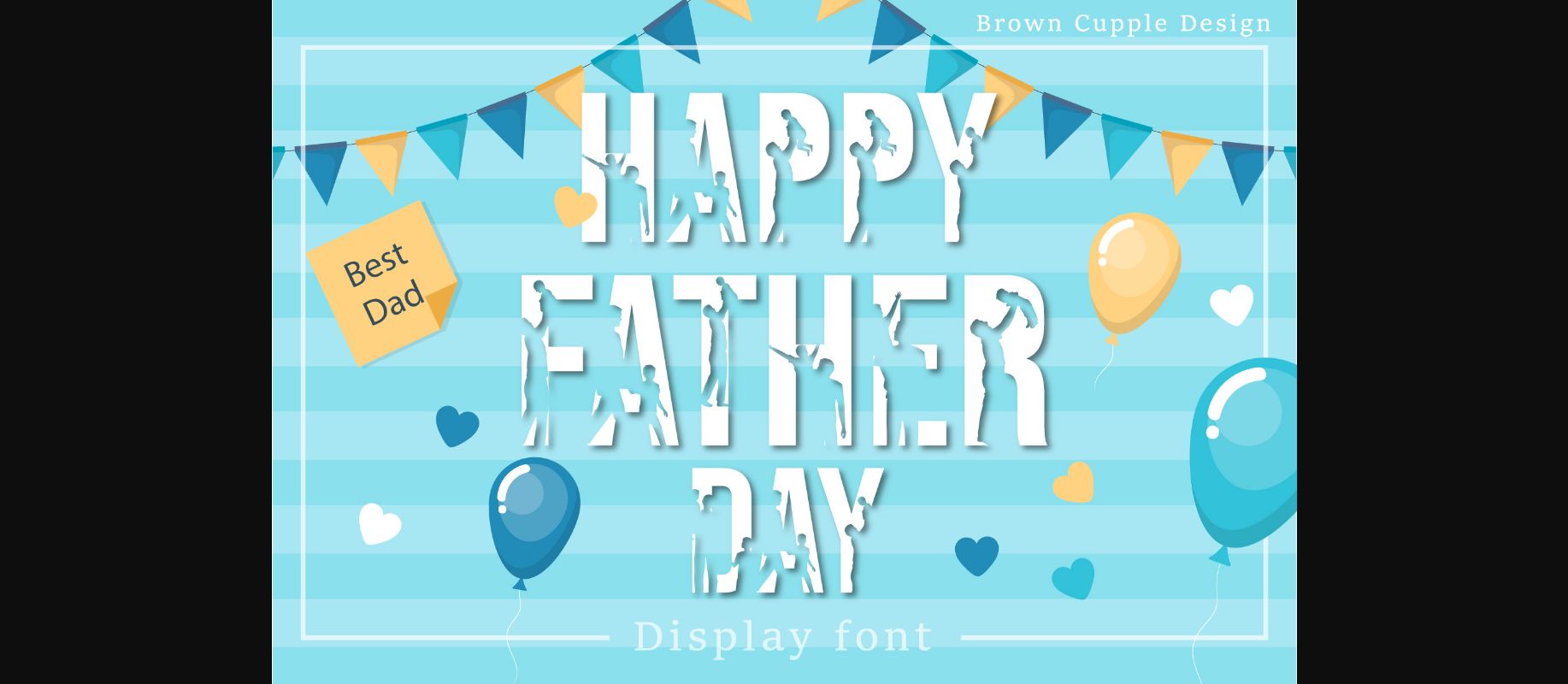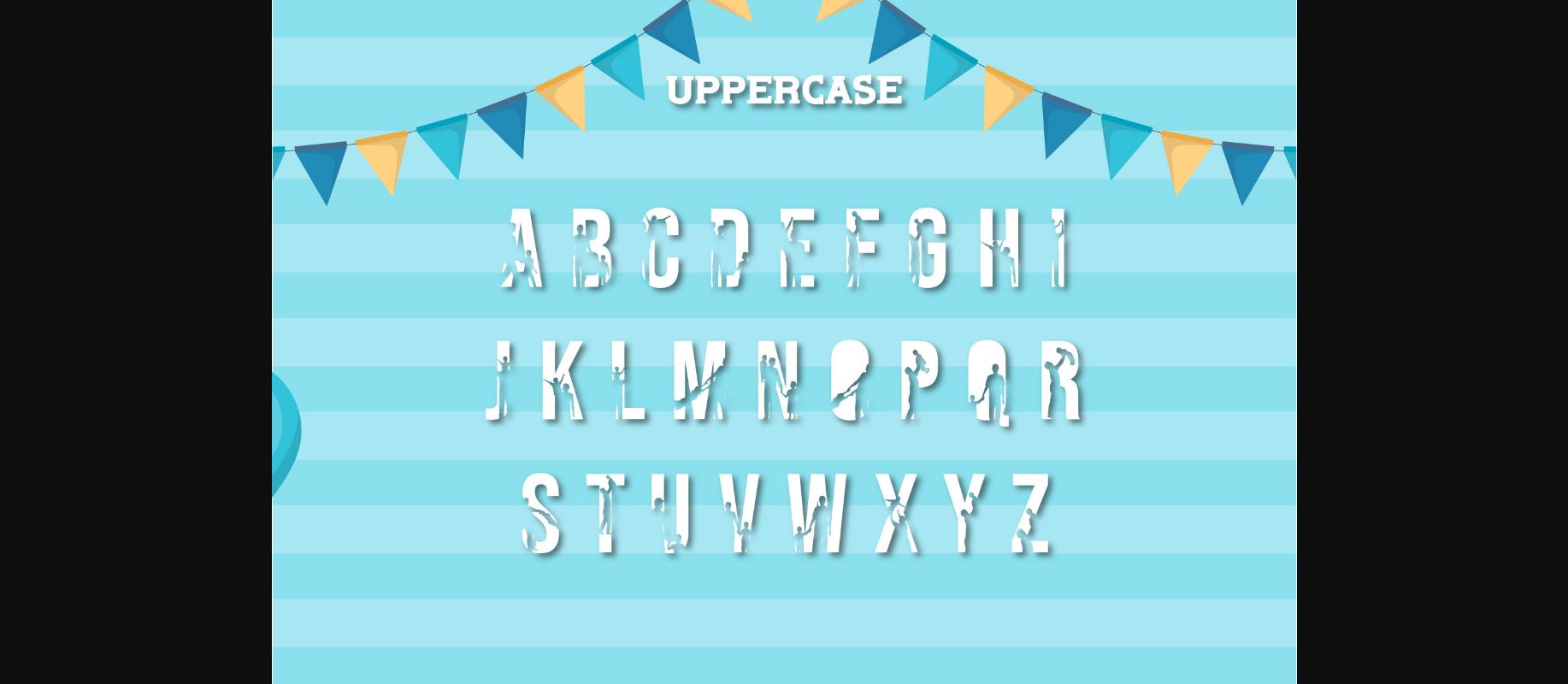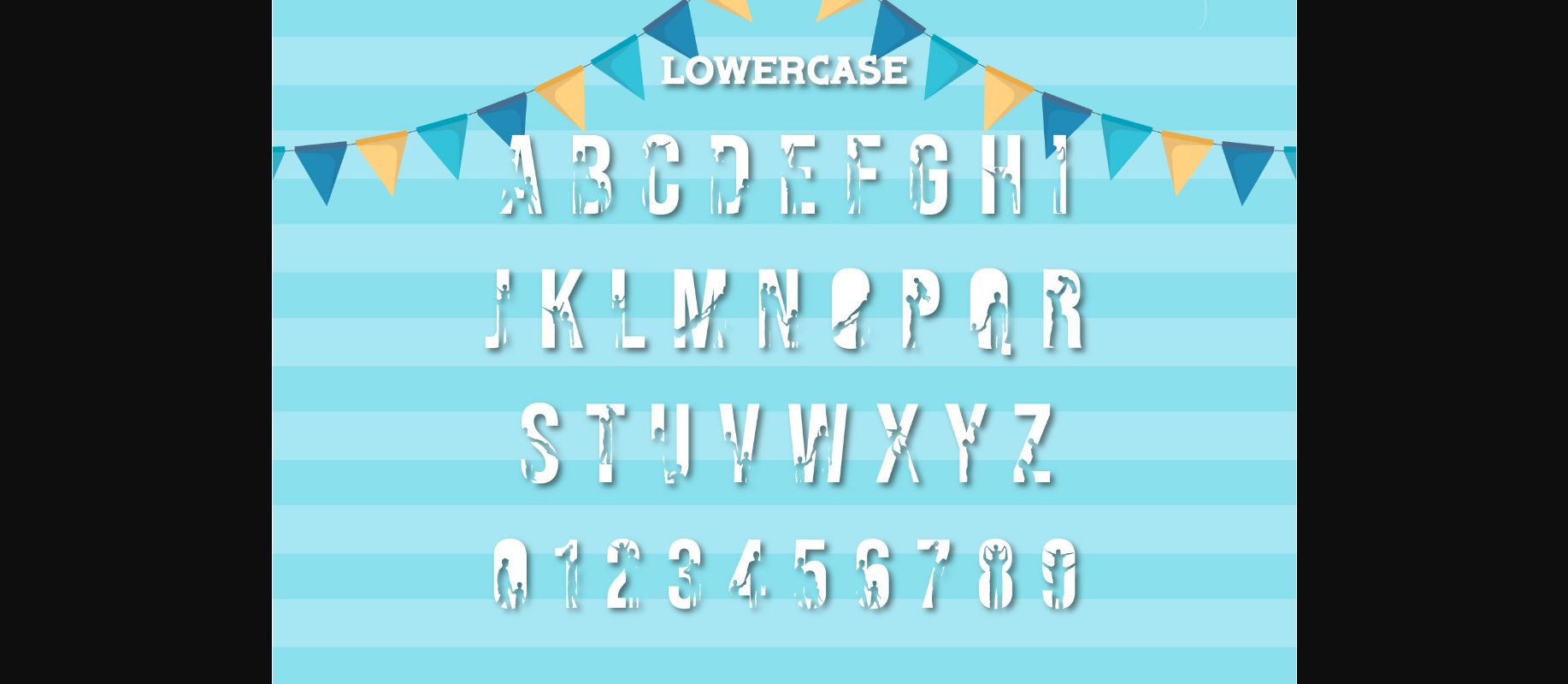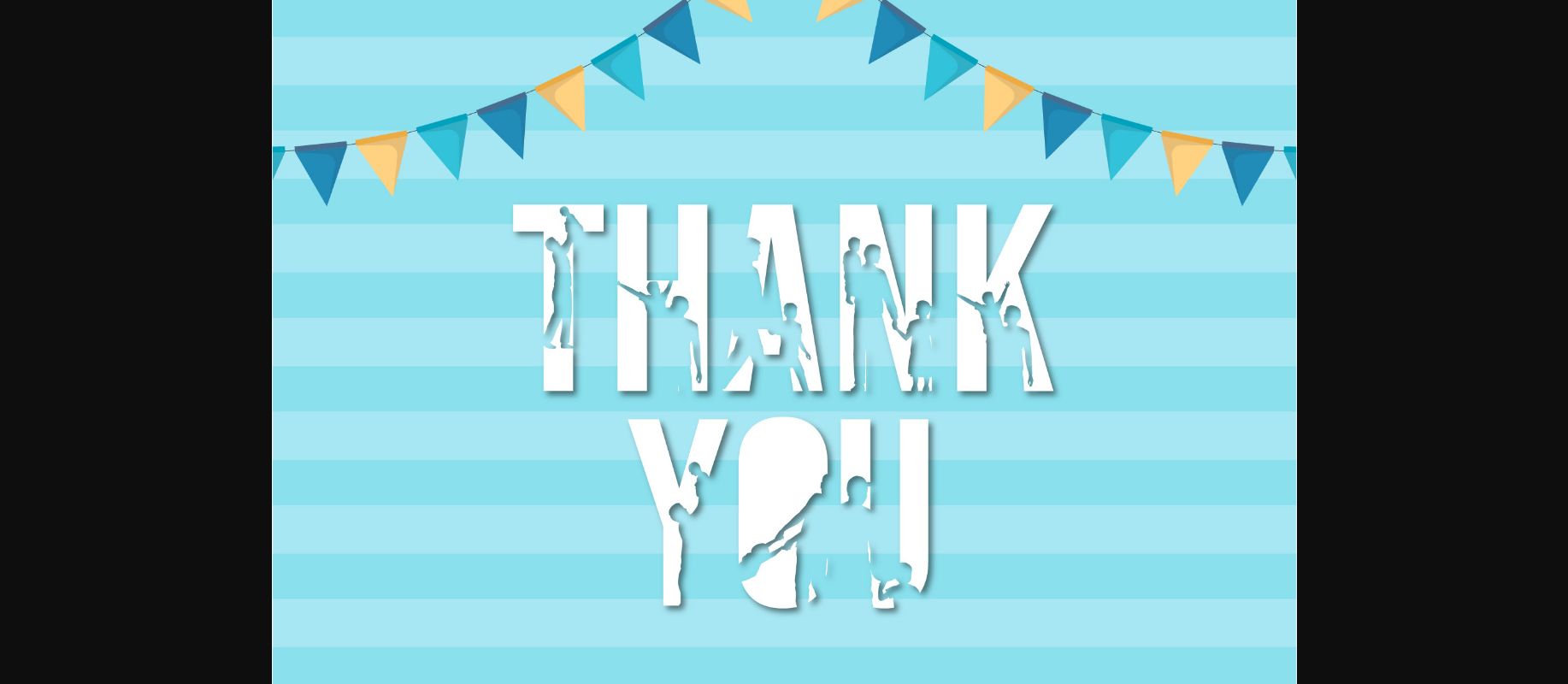
About Happy Father Day Font
Happy Father Day is a cool and original looking decorative font. You can use it for various projects, such as blog posts, logos, branding, ads, invitations, greeting cards, planners, photo albums, decorations, and much more. Add it to any of your designs, and enjoy the results!